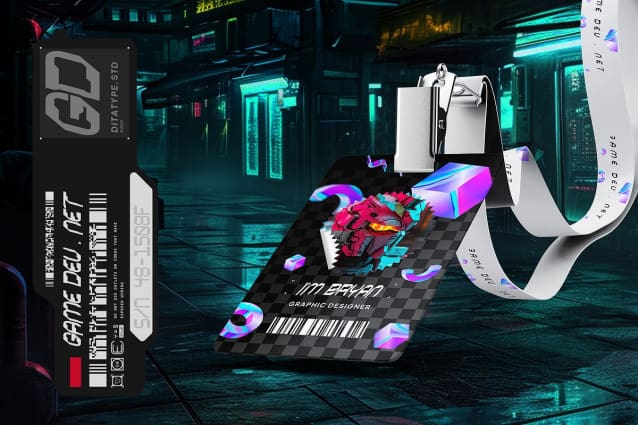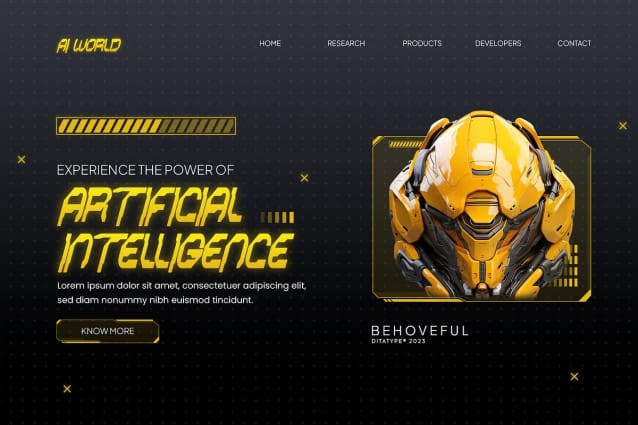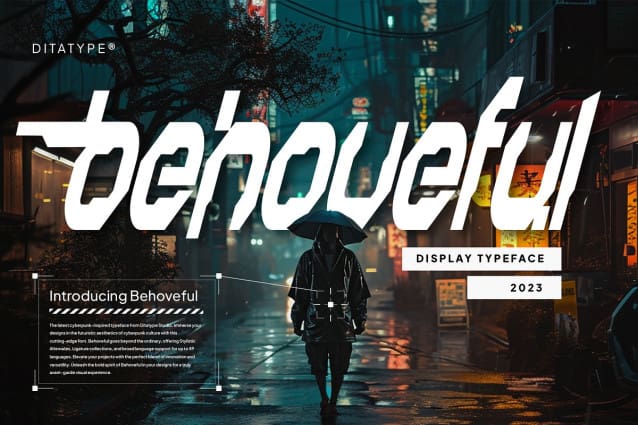
Behoveful Futuristic Font
Behoveful Futuristic Font, is a captivating display font that effortlessly blends futuristic elements with a touch of script elegance. At first glance, Behoveful’s futuristic style is unmistakable, featuring sleek lines, sharp angles, and geometric shapes that evoke a sense of innovation and forward-thinking.
On the other side, its subtle touch of script adds a hint of fluidity and personality to the otherwise futuristic design. These script-inspired details soften the sharp edges of the font, creating a captivating contrast between the sleek geometric forms and the organic flow of the script elements. This fusion of styles gives Behoveful a unique and dynamic appearance that is both eye-catching and versatile.
The uneven outline of Behoveful adds an element of visual interest and depth, further enhancing its futuristic allure. This irregularity in the outline creates a sense of movement and energy, making each character feel alive and dynamic.